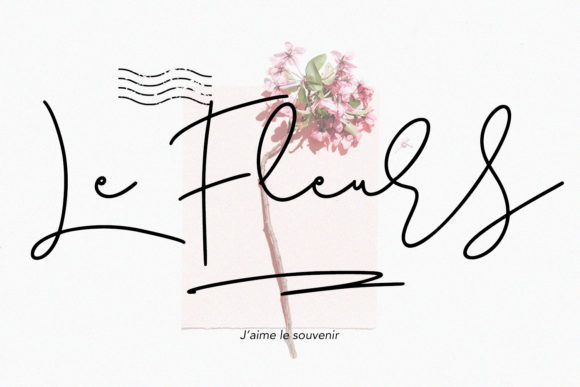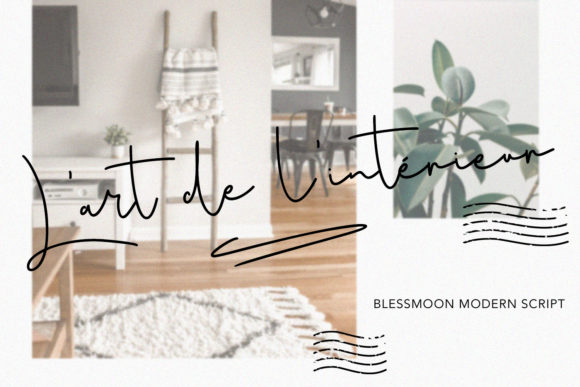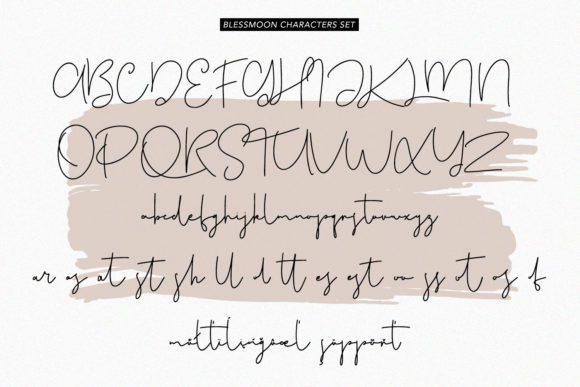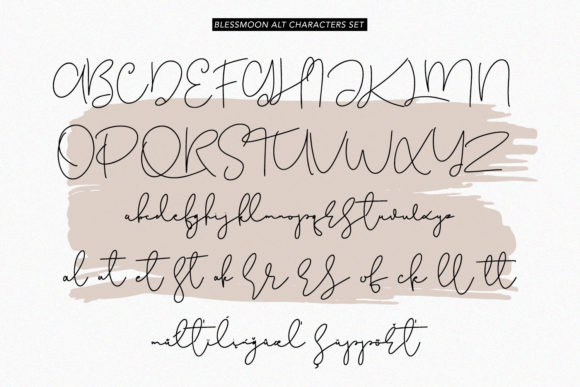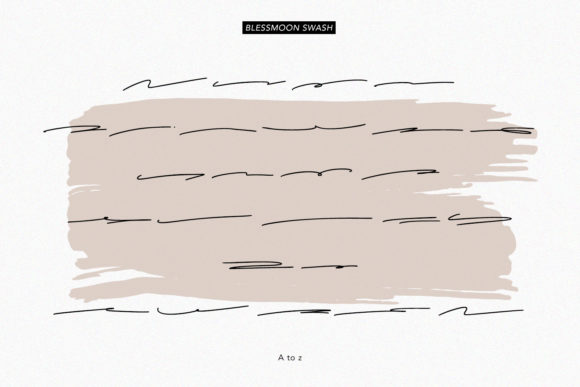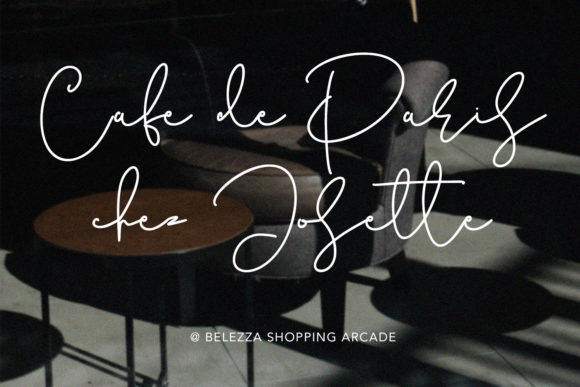
Blessmoon Font: Elevate Your Designs with Elegance and Sophistication
In the world of design, typography plays a crucial role in conveying the message and aesthetic of a project. Among the myriad of fonts available, Blessmoon Font stands out as a stylish and delicate handwritten font that can add a touch of elegance and sophistication to any design. With its clean, thin, and smooth vibe, Blessmoon is poised to become a favorite among designers and crafters alike.
What Makes Blessmoon Font Special?
Blessmoon Font is characterized by its unique blend of style and simplicity. Its delicate strokes and smooth lines give it a distinctive appearance that can instantly elevate the visual appeal of any project. Whether you’re working on a branding campaign, a website design, or a crafting project, Blessmoon Font can add a touch of refinement and luxury.
One of the key features that sets Blessmoon apart from other fonts is its versatility. Its clean and thin design makes it suitable for a wide range of applications, from digital media to print materials. Whether you’re creating a logo, a brochure, or a social media graphic, Blessmoon Font can adapt to your design needs with ease.
Why Designers and Crafters Love Blessmoon Font
Designers and crafters love Blessmoon Font for several reasons:
- Elegance: Blessmoon Font exudes elegance and sophistication, making it perfect for designs that require a touch of luxury.
- Versatility: Its clean and thin design makes it suitable for a wide range of applications, from digital media to print materials.
- Readability: Despite its delicate nature, Blessmoon Font is highly readable, making it ideal for body text and captions.
- Uniqueness: Blessmoon Font has a distinctive appearance that sets it apart from other fonts, making it perfect for designers who want to create unique and memorable designs.
How to Use Blessmoon Font in Your Designs
Using Blessmoon Font in your designs is easy and straightforward. Here are some tips to get you started:
- Pair it with bold fonts: Pair Blessmoon Font with bold fonts to create a striking contrast and add visual interest to your design.
- Use it for headings: Blessmoon Font is perfect for headings and titles, where its elegant and sophisticated appearance can shine.
- Add a personal touch: Use Blessmoon Font to add a personal touch to your designs, such as in quotes, testimonials, or captions.
Tips for Getting the Most Out of Blessmoon Font
To get the most out of Blessmoon Font, here are some tips to keep in mind:
- Experiment with different sizes: Experiment with different font sizes to find the perfect balance for your design.
- Play with colors: Play with different colors to find the perfect match for your design.
- Use it consistently: Use Blessmoon Font consistently throughout your design to create a cohesive and harmonious look.
In conclusion, Blessmoon Font is a stylish and delicate handwritten font that can add a touch of elegance and sophistication to any design. With its clean, thin, and smooth vibe, it’s perfect for designers and crafters who want to create unique and memorable designs. Whether you’re working on a branding campaign, a website design, or a crafting project, Blessmoon Font is sure to become a favorite in your font collection.